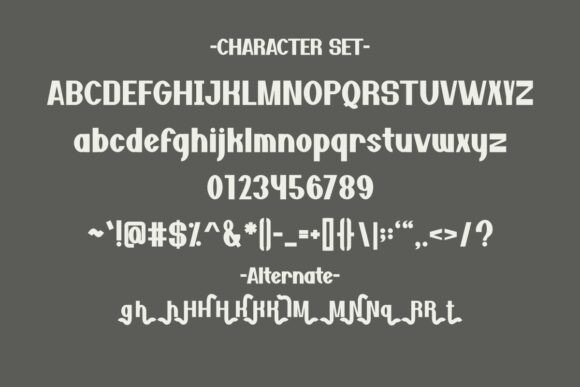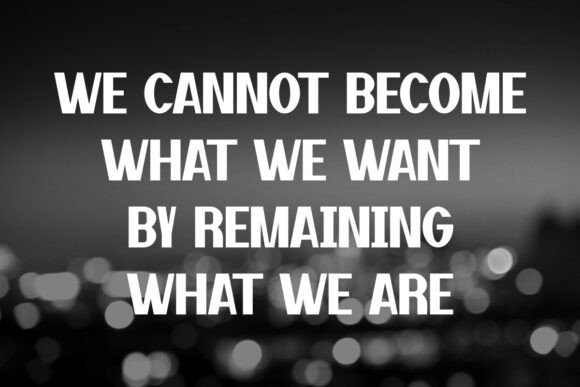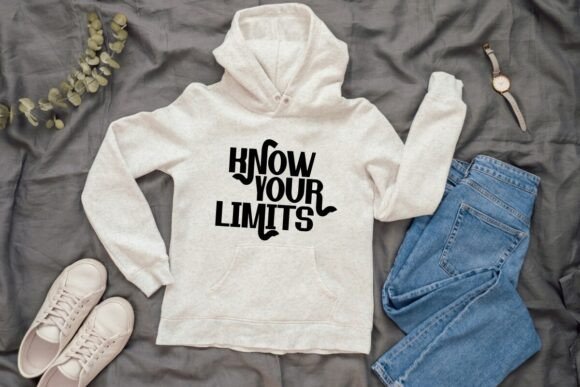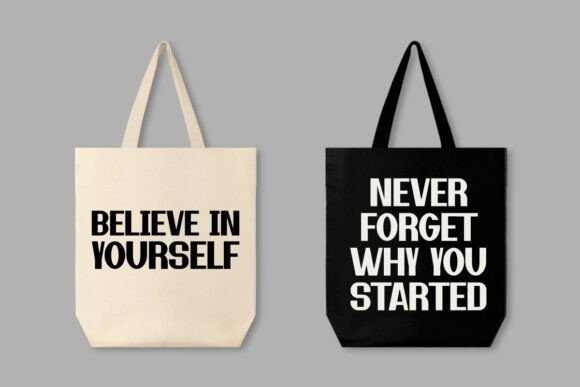
Introducing Glitter Nights Font: Elevate Your Designs with a Touch of Festive Elegance
Are you looking for a font that combines modern sophistication with a dash of festive flair? Look no further than Glitter Nights, a bold and elegant sans serif font that’s perfect for designers and crafters seeking to add a touch of luxury to their projects. In this article, we’ll dive into the world of Glitter Nights, exploring its features, uses, and benefits, and showing you how this versatile font can elevate your designs to new heights.
A Modern Sans Serif Font with a Festive Twist
Glitter Nights is a stunning modern sans serif font that seamlessly blends contemporary style with a festive Christmas touch. Its sleek design makes it an ideal choice for creating eye-catching quotes, posters, apparel mockups, mugs, and tote bags that are sure to grab attention. Whether you’re working on a holiday-themed project or a modern design that needs a touch of sophistication, Glitter Nights is the perfect choice.
Key Features of Glitter Nights Font
- Bold and Elegant Design: Glitter Nights boasts a bold and elegant design that’s perfect for creating sophisticated and stylish designs.
- Modern Sans Serif Style: This font features a modern sans serif style that’s clean, crisp, and highly legible.
- Festive Christmas Touch: Glitter Nights adds a touch of festive flair to any design, making it perfect for holiday-themed projects.
- Highly Versatile: This font is suitable for a wide range of design projects, from quotes and posters to apparel mockups and social media designs.
Uses for Glitter Nights Font
Glitter Nights is an incredibly versatile font that can be used in a variety of design projects, including:
- Quotes and Posters: Create eye-catching quotes and posters that are sure to grab attention with Glitter Nights.
- Apparel Mockups: Add a touch of sophistication to your apparel mockups with this elegant font.
- Mugs and Tote Bags: Glitter Nights is perfect for designing mugs and tote bags that make great gifts or promotional items.
- Social Media Designs: Elevate your social media designs with a stylish and sophisticated vibe using Glitter Nights.
Benefits of Using Glitter Nights Font
So why choose Glitter Nights for your design projects? Here are just a few benefits of using this amazing font:
- Instant Recognition: Glitter Nights is sure to grab attention and make your designs stand out from the crowd.
- Professional Look and Feel: This font gives your designs a professional look and feel that’s perfect for businesses and individuals alike.
- Easy to Read: Glitter Nights is highly legible, making it easy for readers to quickly scan and understand your designs.
- Customizable: This font is highly customizable, allowing you to adjust the size, color, and style to suit your design needs.
Tips for Using Glitter Nights Font
To get the most out of Glitter Nights, here are a few tips to keep in mind:
- Use it Sparingly: While Glitter Nights is a stunning font, it’s best used sparingly to avoid overwhelming your design.
- Experiment with Colors: Try out different colors and combinations to find the perfect look for your design.
- Pair it with Other Fonts: Glitter Nights pairs well with other fonts, so don’t be afraid to experiment with different combinations.